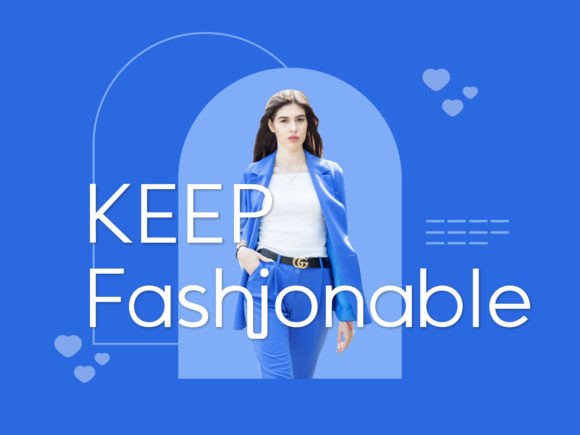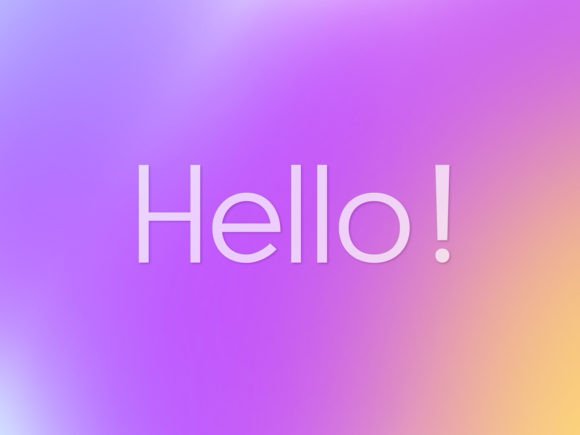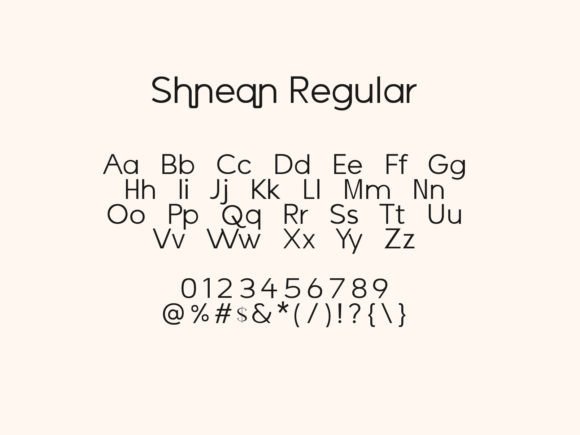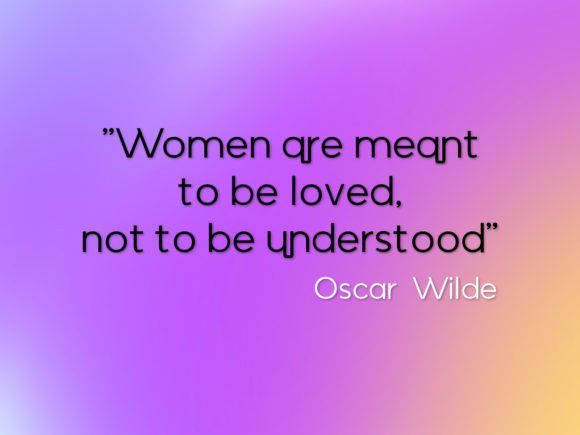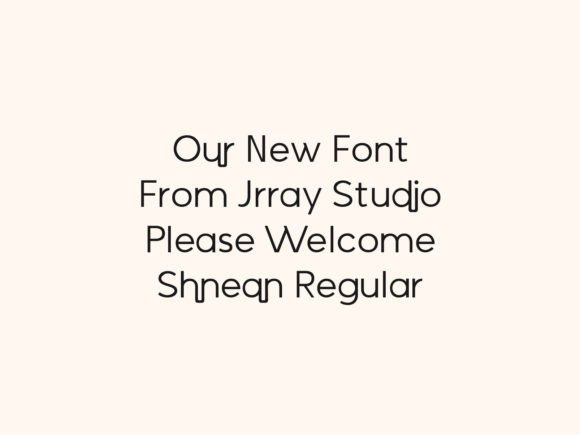
Introduction to Shnean Font
Remember that moment when you’re working on a creative project, and the perfect font is all that’s missing to bring your design to life? It’s like searching for the missing piece of a puzzle, and suddenly, everything falls into place. For designers, finding the right font can be a game-changer.
That’s where our Shnean Font comes in – a professional and modern sans-serif font designed to be an easy go-to for branding, web, print design projects, and others. With its clean lines and high-quality design, Shnean Font is the perfect addition to any design resource. Whether you’re working on a project that requires a transparent background or a bold statement, Shnean Font has got you covered.
Key Features of Shnean Font
- High-quality, professional design suitable for creative projects and presentations.
Honest Review: Shnean Font
As a designer, I’m always on the lookout for high-quality design resources to elevate my creative projects. Recently, I stumbled upon the Shnean Font, and I’m excited to share my honest review with you.
- ✨ The Shnean Font has a unique, modern design that’s perfect for a wide range of creative projects.
- ✨ The font files include a transparent background, which is a huge plus for designers who need to use the font on complex backgrounds.
- ✨ The font is highly versatile and can be used for a variety of design applications, from logos to body text.
- ⚠️ The font is not as comprehensive as some other font families, with only a limited number of styles and weights available.
- ⚠️ Some users may find the font’s unique design to be a bit too out-there for their taste.
Overall, I’m impressed with the Shnean Font and would definitely recommend it to designers looking for a high-quality, modern font for their creative projects. While it may have some limitations, its unique design and transparent background make it a valuable addition to any designer’s toolkit.